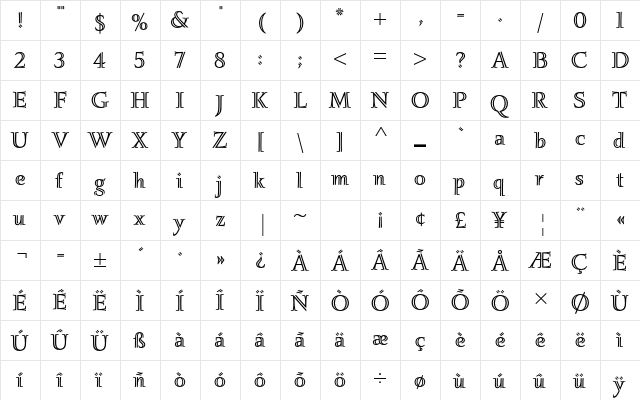
Ignatius Std Regular
| Designer | Freda Sack |
Design Context for Ignatius Std Typeface
Ignatius Std offers clean, dependable letterforms without strong stylistic allegiance, making it a practical choice for designers who need flexibility.